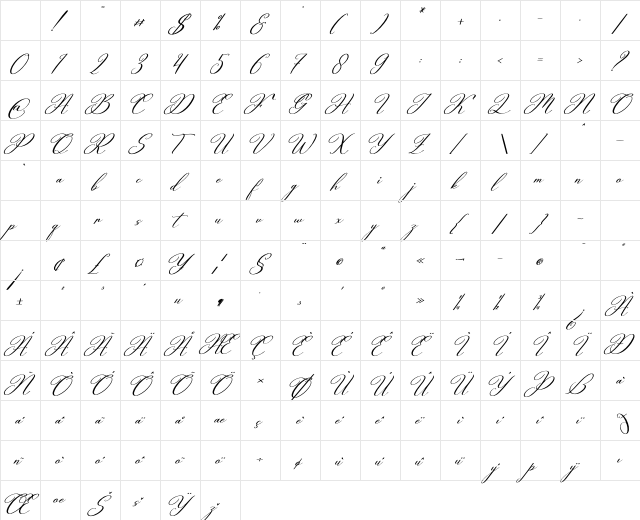
Complete Celtaniya Bioffany Italic Regular glyph index. Displaying only characters natively supported by Celtaniya Bioffany Italic Regular font.
Celtaniya Bioffany Italic is a composed and adaptable typeface that performs quietly and consistently across a wide range of design contexts. The slanted form adds forward momentum and visual energy.
Pro Tip: Use Celtaniya Bioffany Italic for emphasis, pull quotes, and subheadings where its slanted energy can add rhythm to the layout.